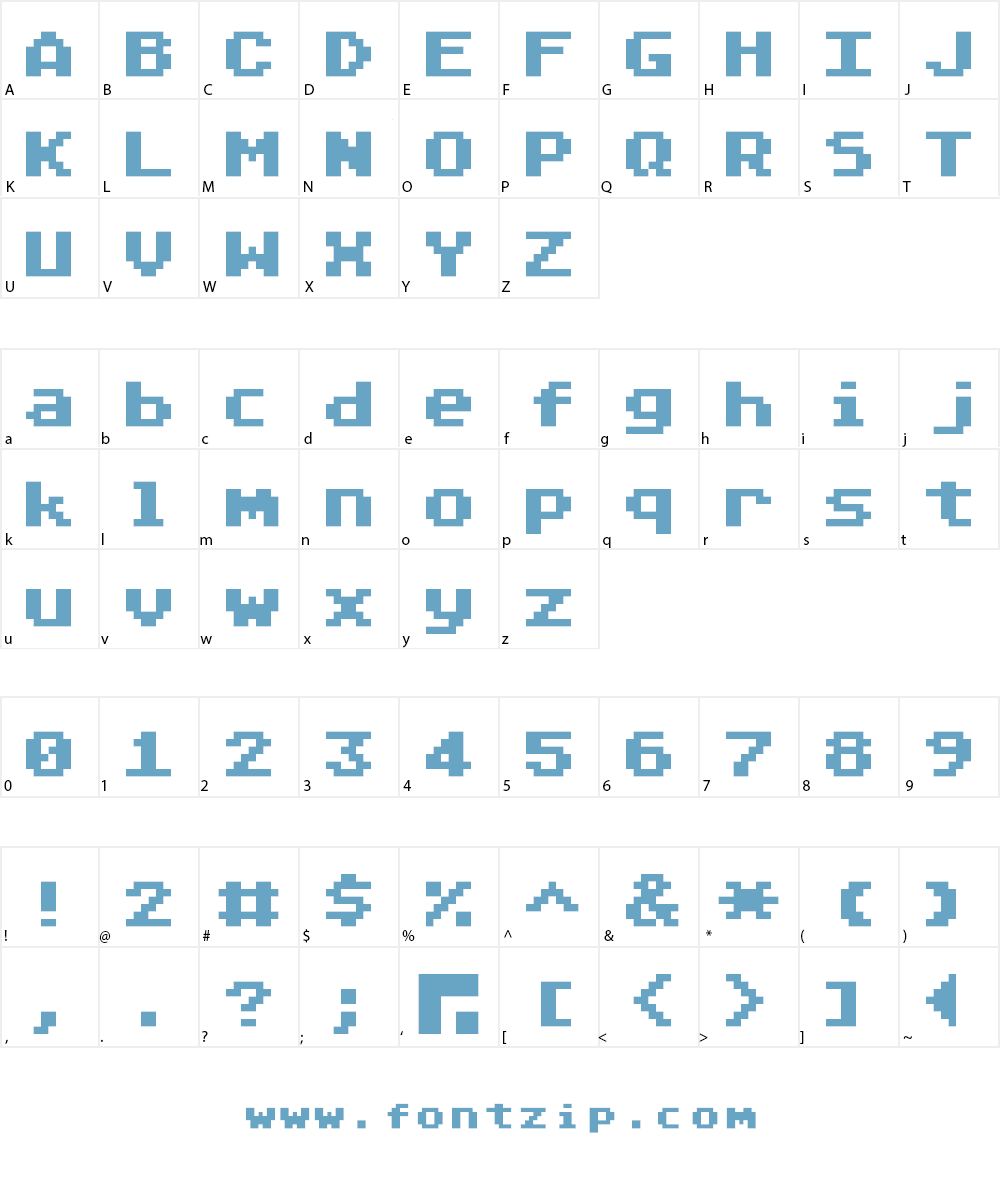
Based on the Atari 8-bit character set, this is a TrueType font for modern Macs and PCs. The font includes the full standard ATASCII 256-character set, including graphics characters and inverse characters, arranged in exactly the same order as the original. In addition, it includes the ATASCII European character set that was introduced in the 1200XL.
In normal use, Atari Classic mimics the appearance of the Atari character set in your favorite word processor or graphics program. It includes the standard Mac Roman and Windows 1252 (Western) character set, modeled after the classic Atari characters.